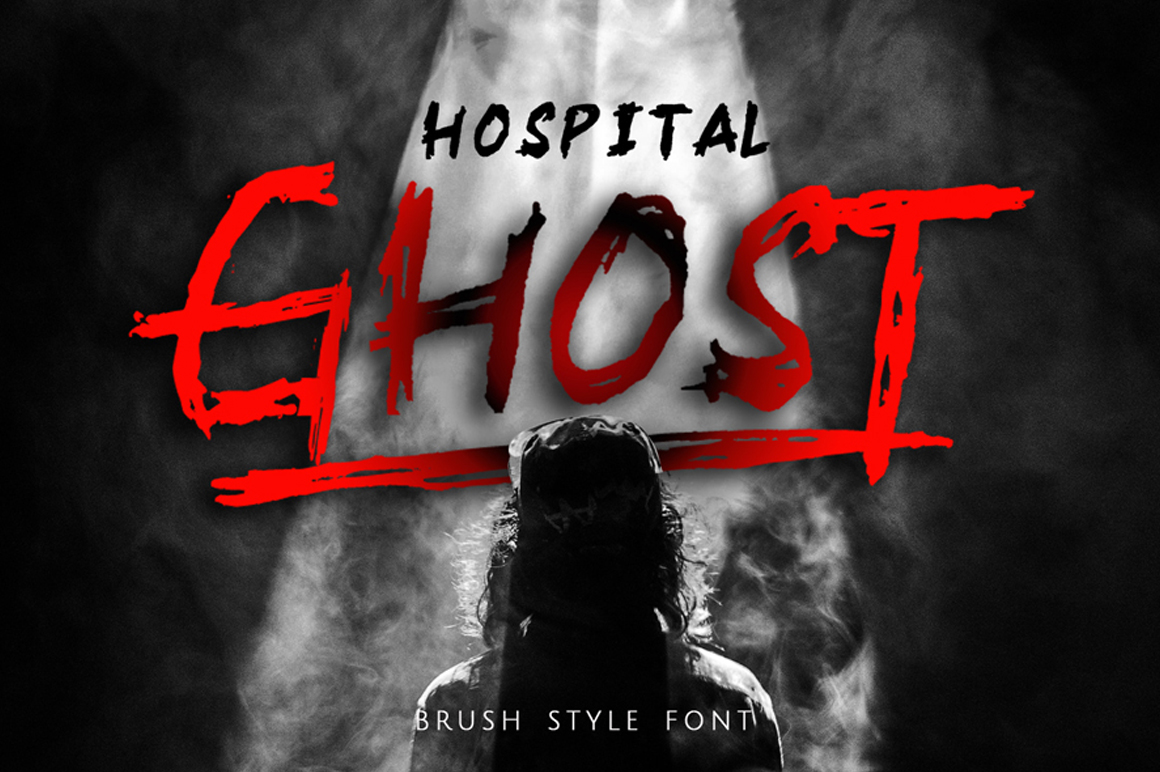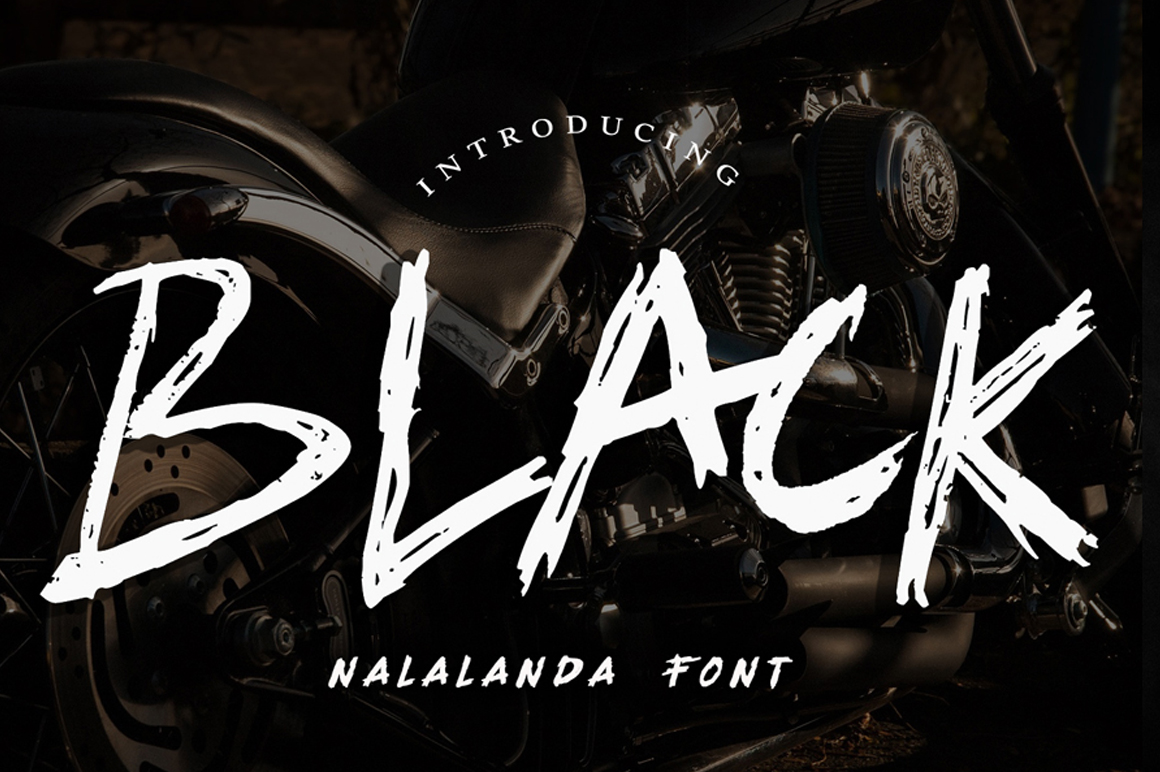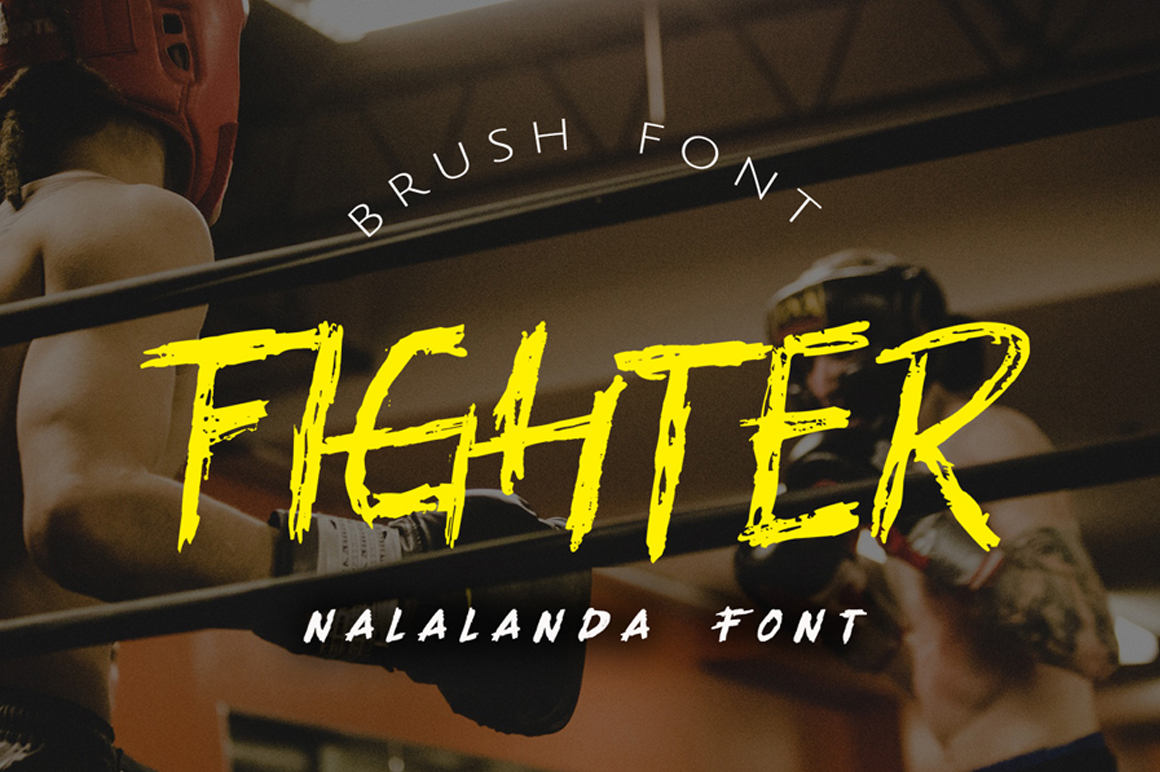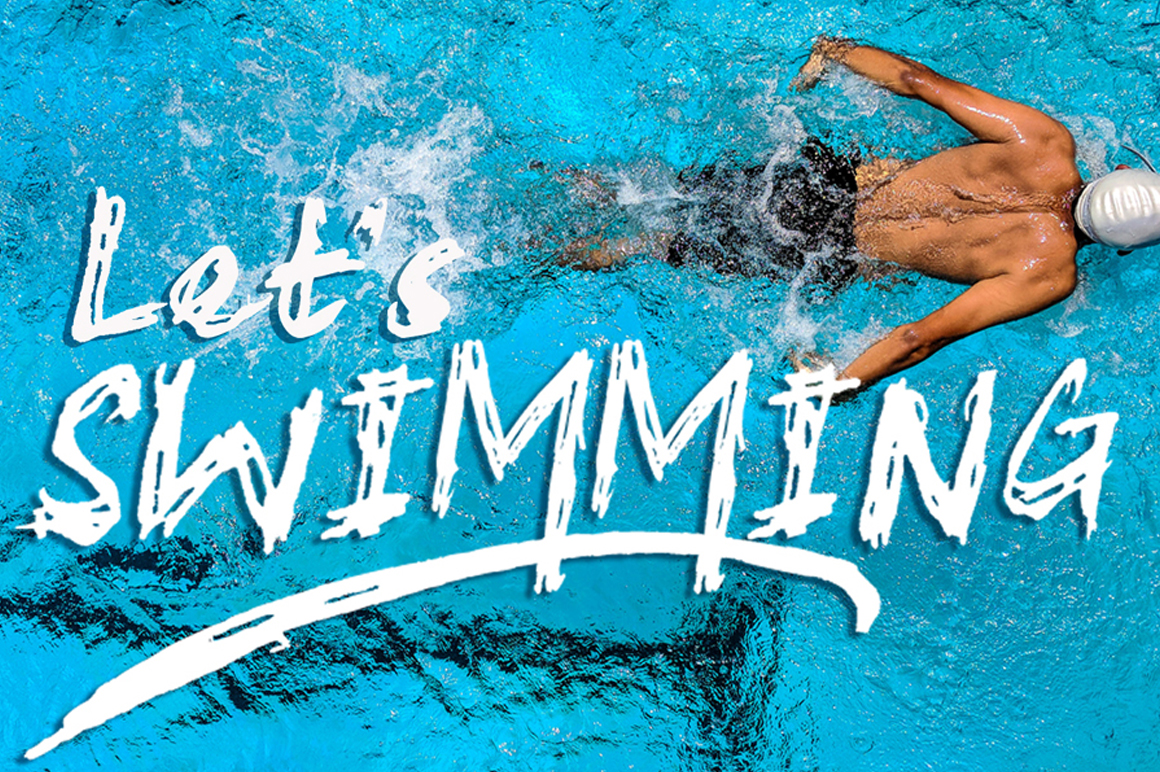
Nalalanda Free Font
Nalalanda Free Font is the latest modern typeface brush and it is easy to make letters only with this font! Nalalanda Fonts are perfect for sports, ghosts, posters, t-shirt designs, jacket caps, or something that gives a strong impression. Nalalanda fonts are equipped with alternative stylistic, swash, and underline. To access the underline, you can easily type: Number + underline twice in the middle of a sentence. This free typeface was designed by a talented Bandofol Studio. If you like it don’t forget to check out the full version.